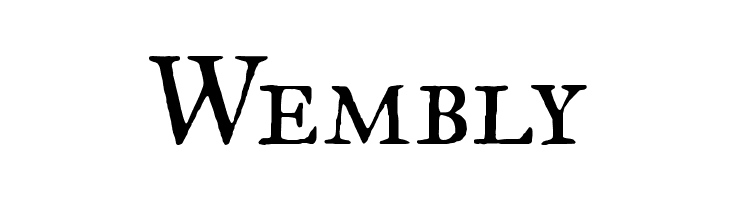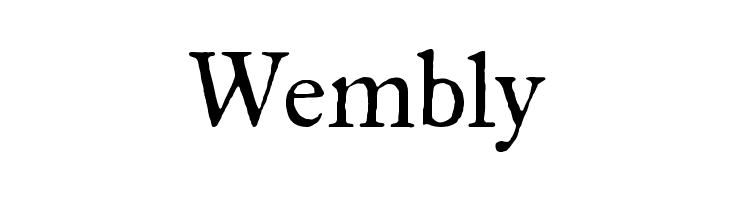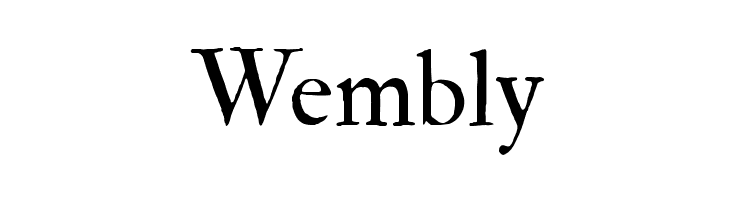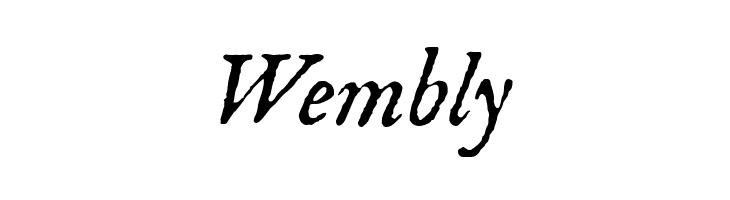
Grand Historia Font
- Font: Grand Historia
A classic serif font with medium contrast and elegant styling.
A classic serif font with high contrast and elegant, sophisticated styling.
A classic serif font with high contrast and sharp serifs, exuding elegance and sophistication.
An elegant, italic serif font with high contrast and classic style.
A classic serif font with elegant, traditional letterforms and balanced proportions.
A classic serif font with a historical and elegant design.
A classic, italic font with a hand-drawn, vintage English style.